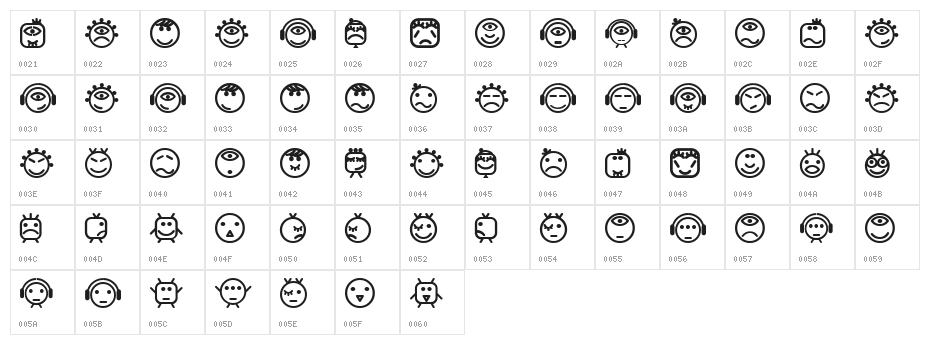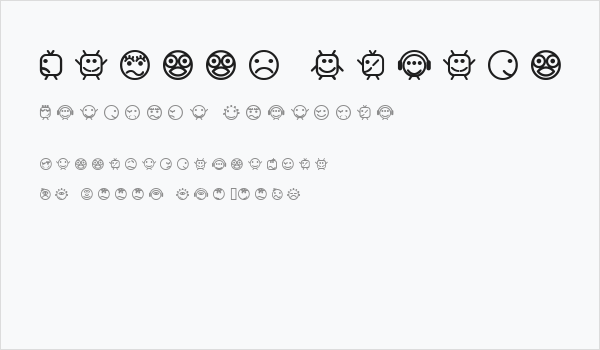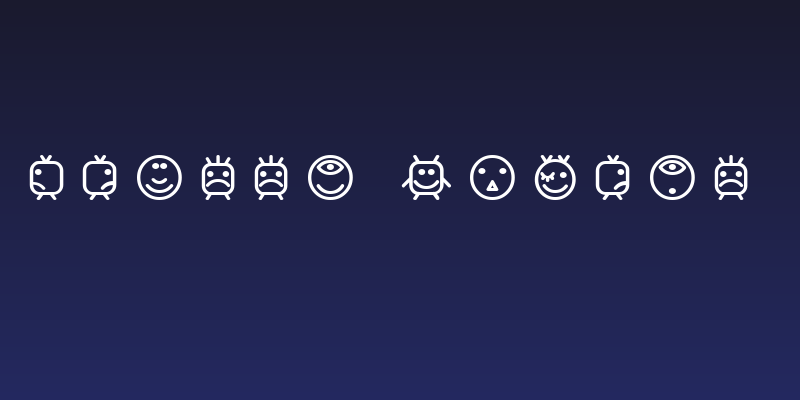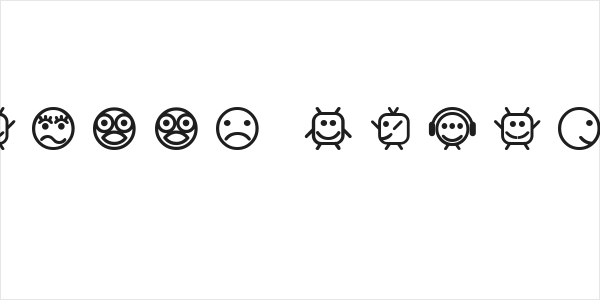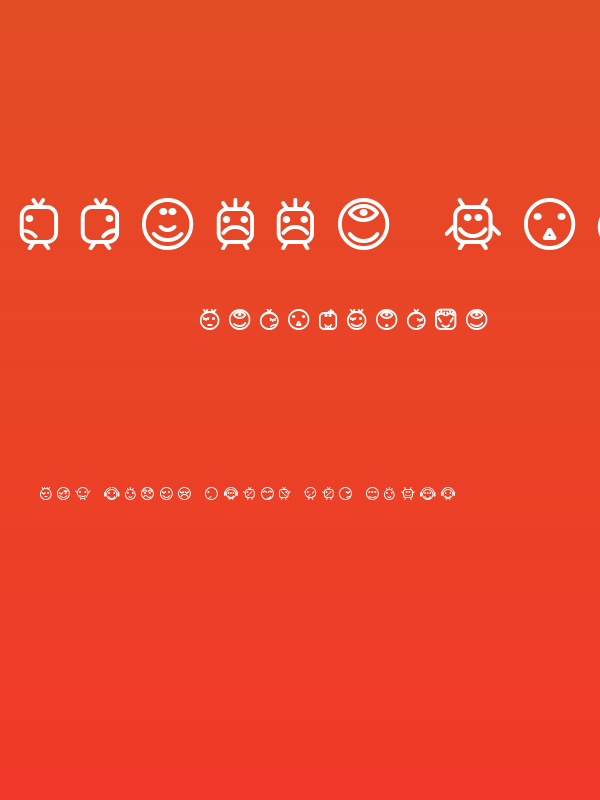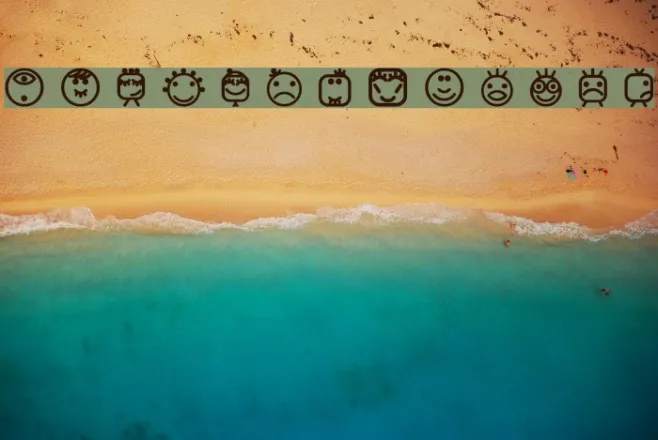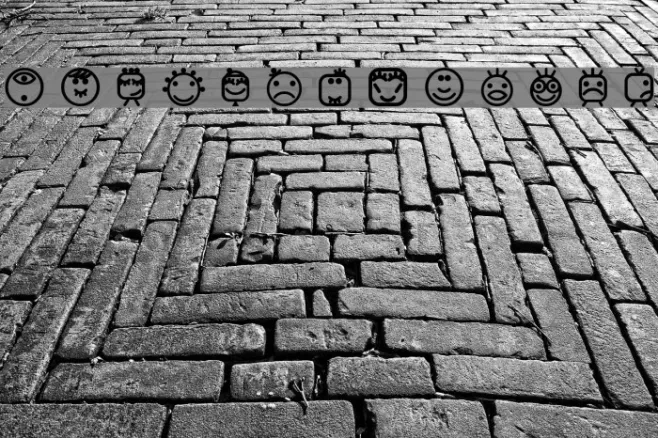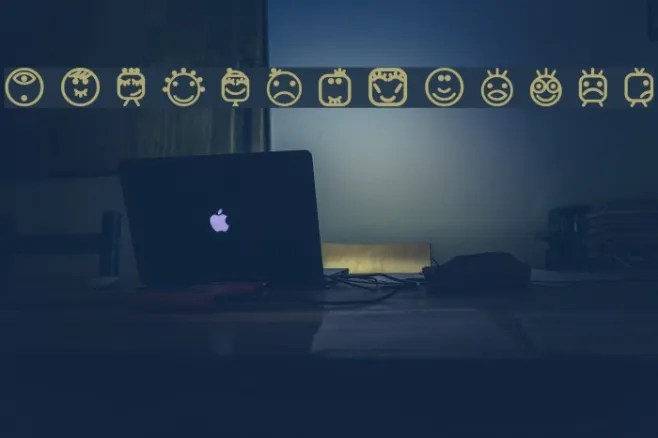
Smilly Normal Font
Smilly Normal Description
A playful decorative font composed entirely of unique smiley face icons, each representing a different character with varied expressions and accessories. The glyphs are circular, bold, and outlined, with consistent stroke thickness and whimsical details.
| Overall Style | Playful, Decorative, Whimsical |
| Use Case | Logos, Headlines, Posters, Social media graphics |
| Proposed Projects | Children’s books, playful branding, party invitations, educational materials, emoji-based designs. |